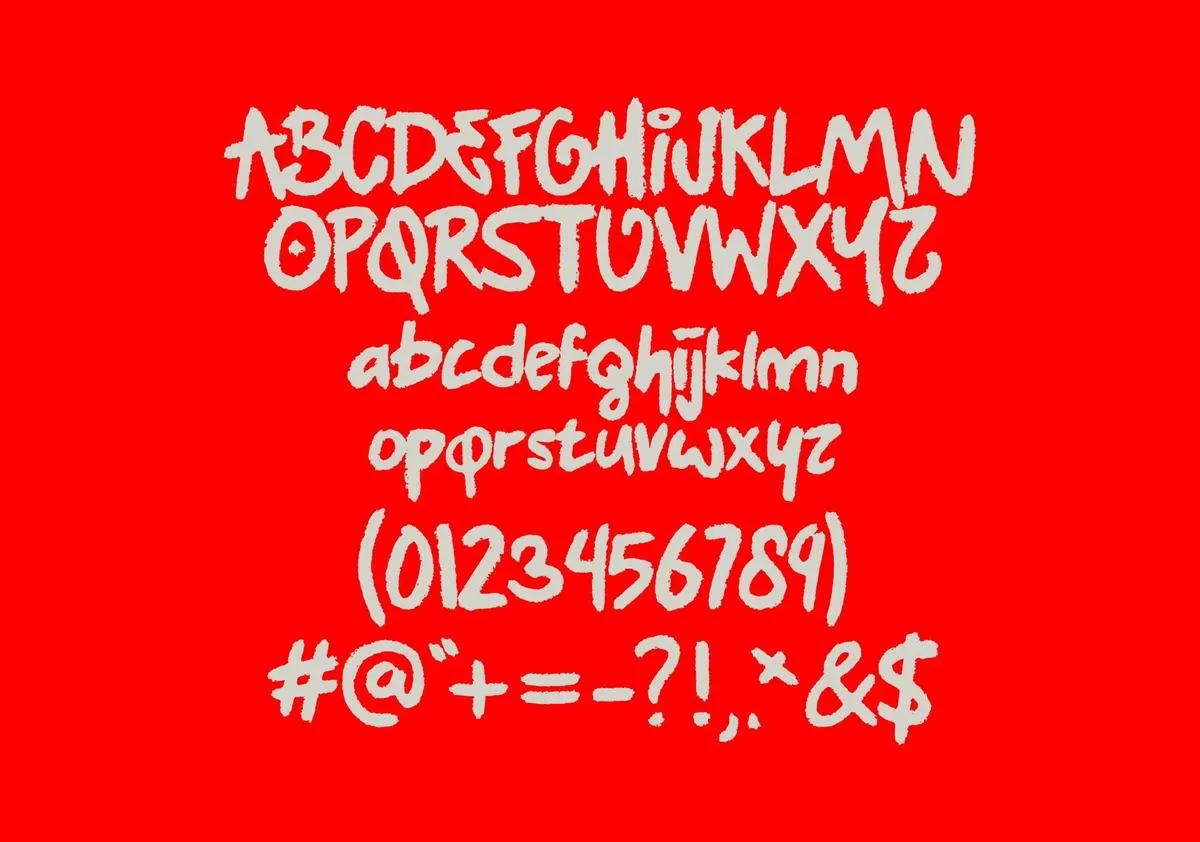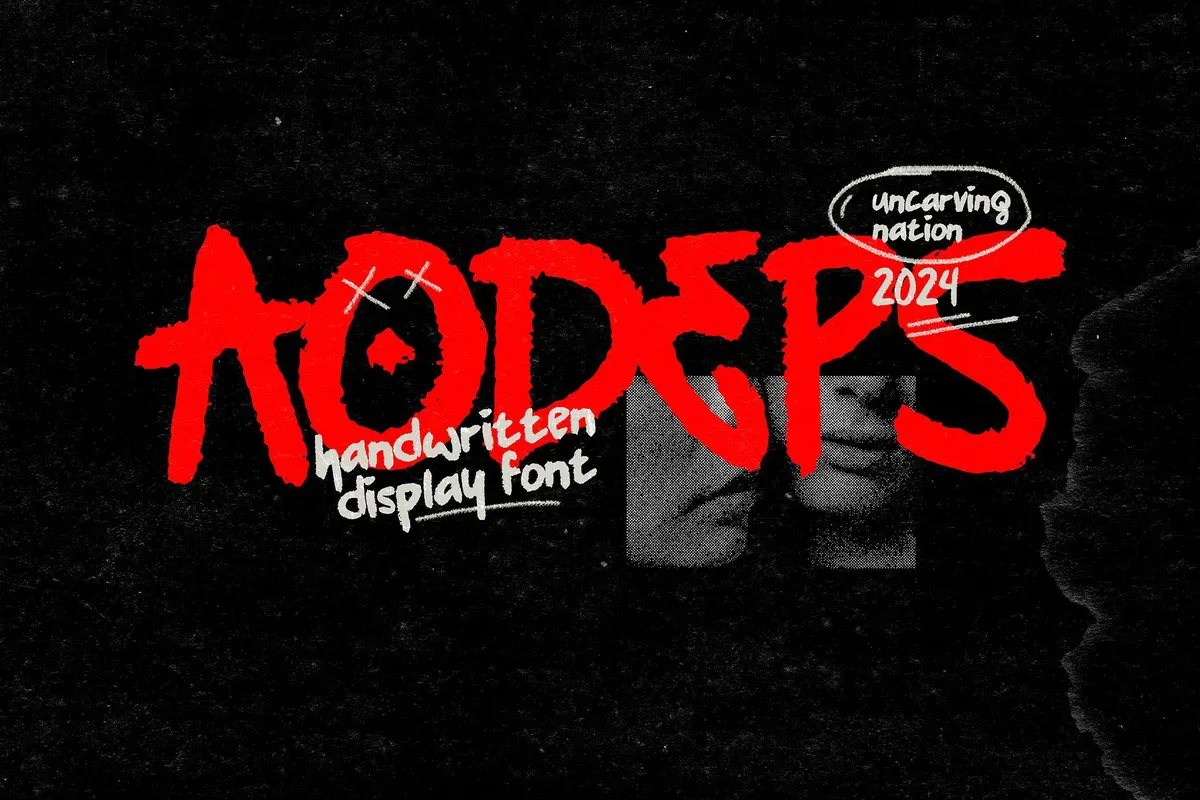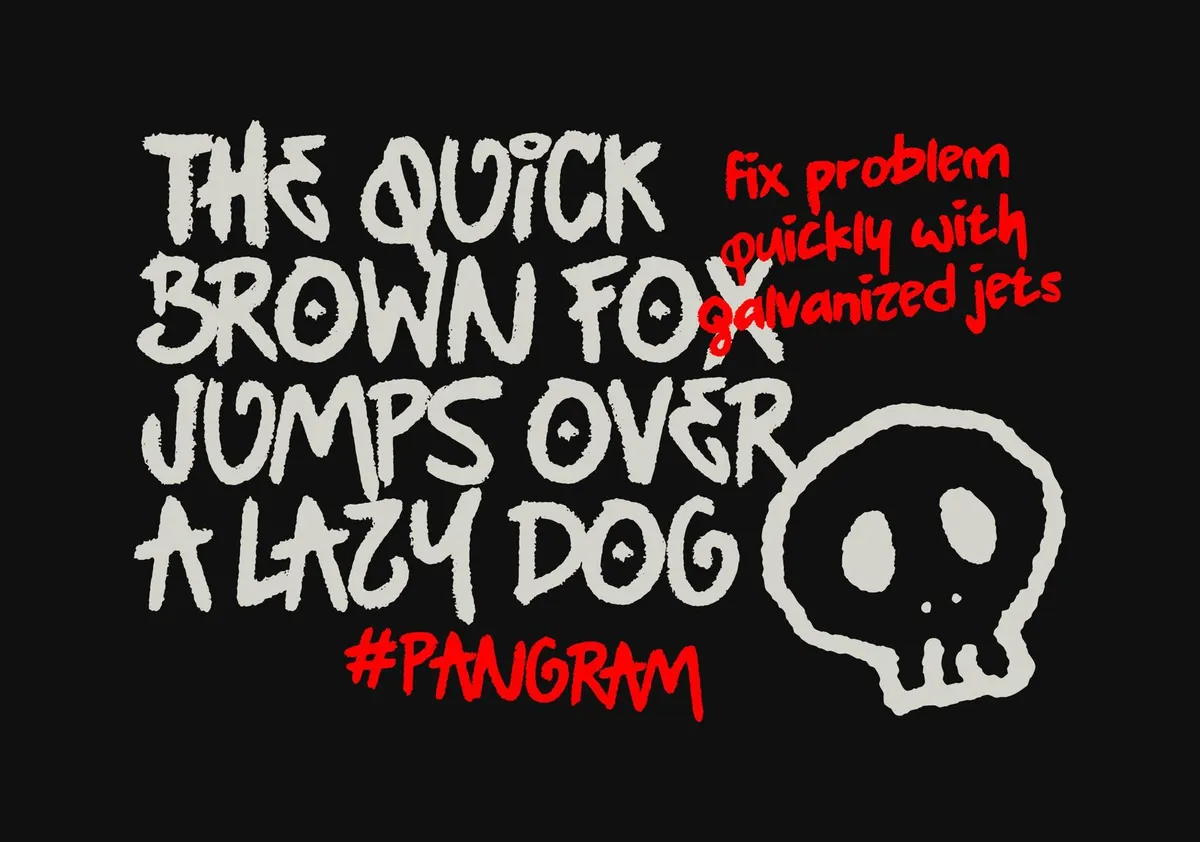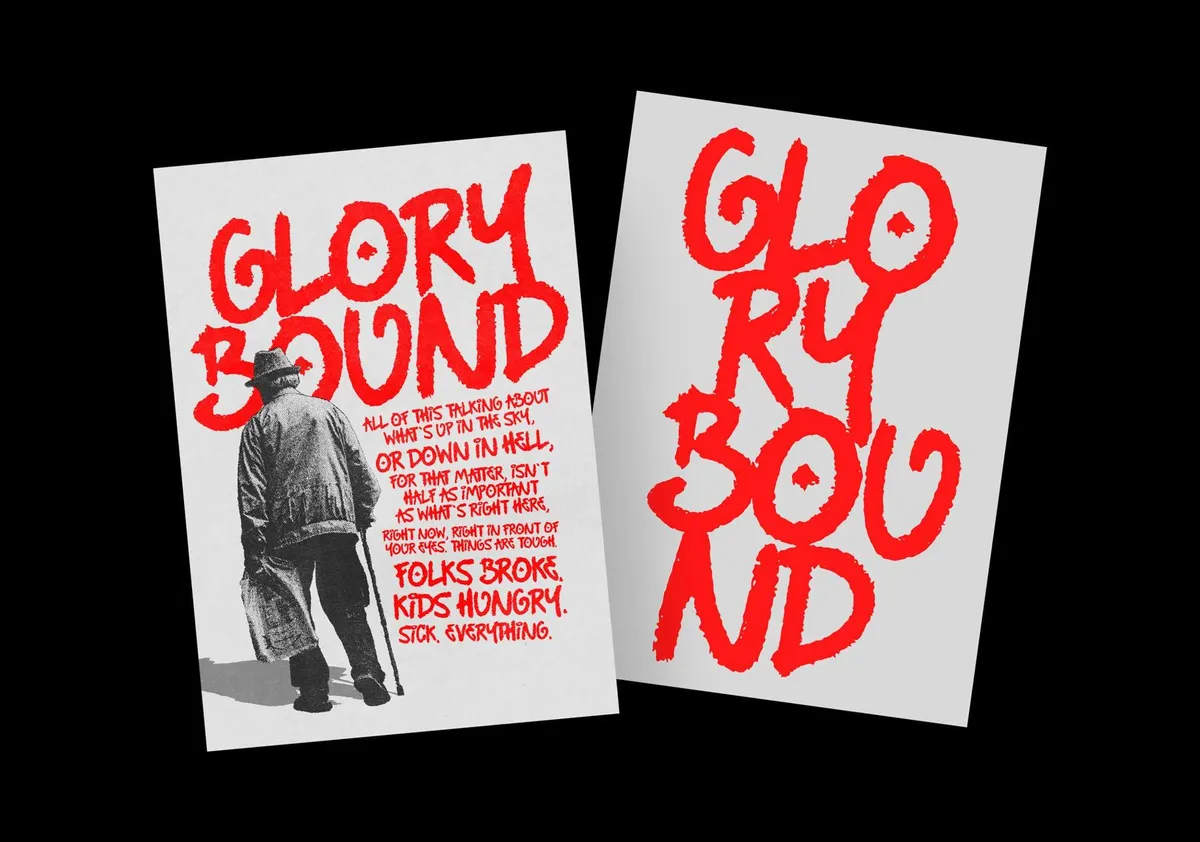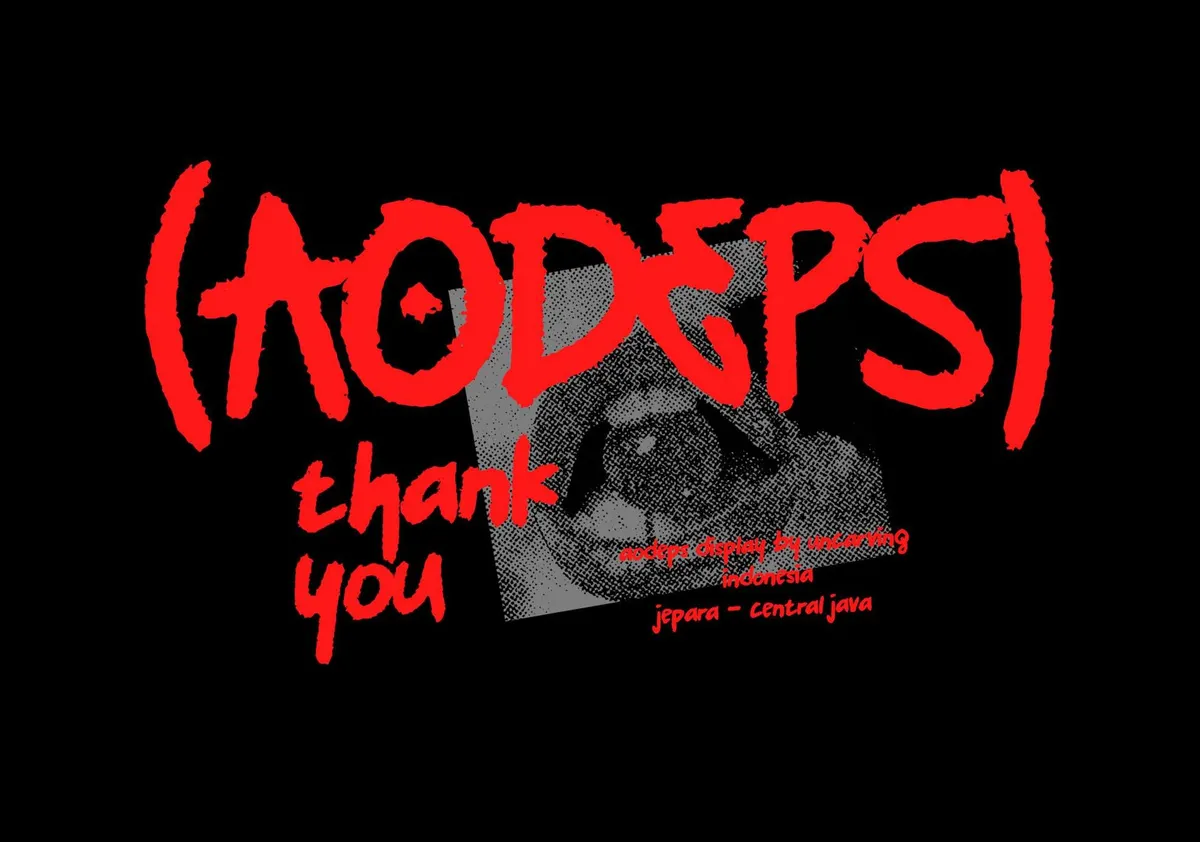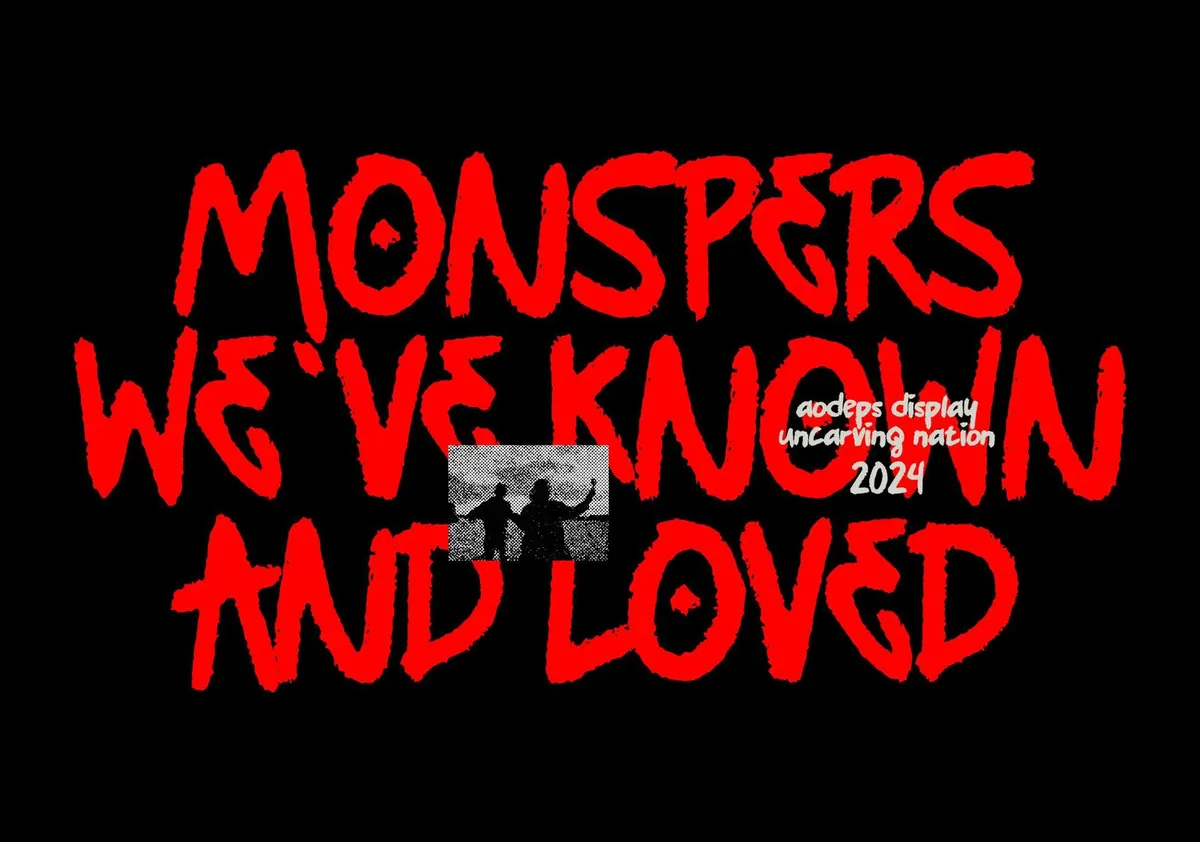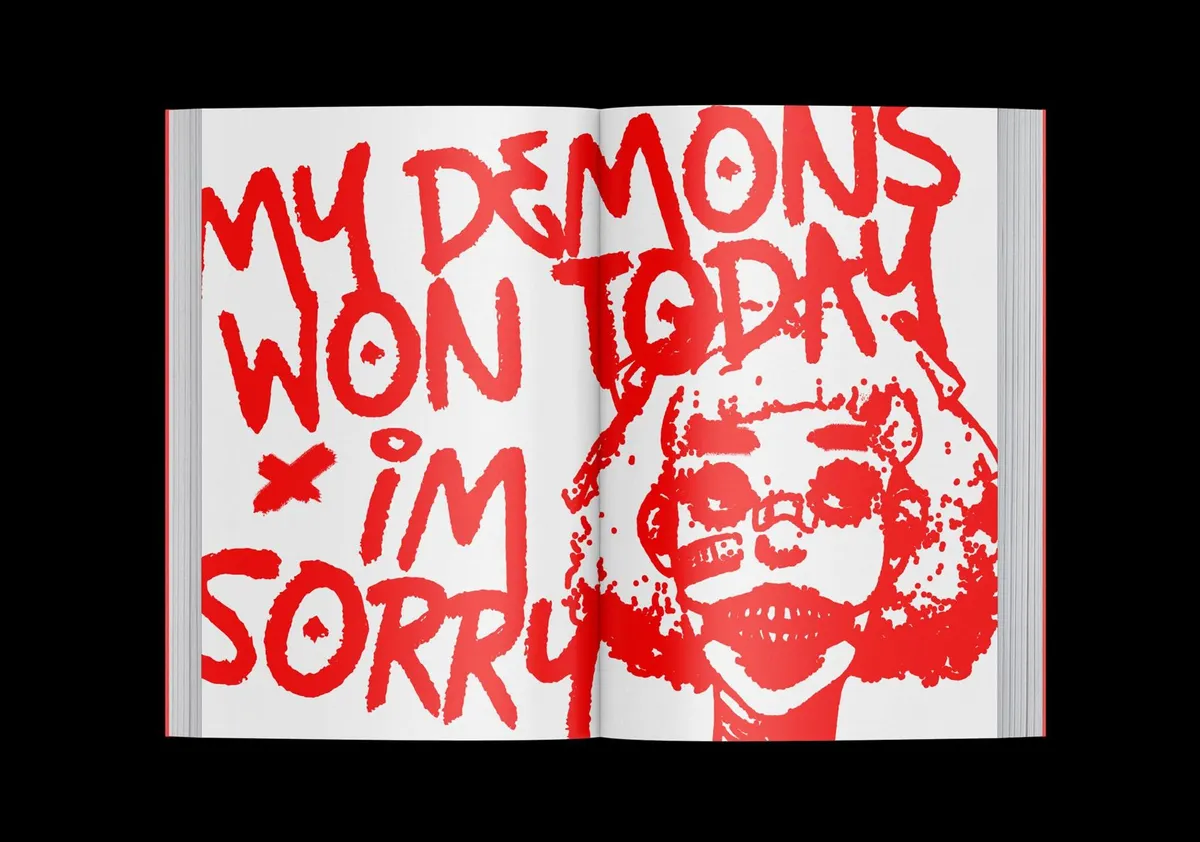
Aodeps — Display Font
If you’ve ever wanted a font that perfectly matches the vibe of Mother Mother’s "Hayloft" (whether you’re more into the first or second version), Aodeps is it. This grungy, handwritten typeface oozes that unmistakable edgy, grungy vibe.
Aodeps is a display font, inspired by street culture and the raw authenticity of handwritten notes scrawled on walls. It’s simple, but not boring. The jagged edges and rough lines give it a gritty yet modern aesthetic that’s perfect for anything with a rebellious streak — whether you’re working on a zine, branding, or any project that demands a little bit of edge. Perfect for projects where you need that punch of "I don't care, but also, yes I do." It comes with uppercase, lowercase, and punctuation , so you’re covered for whatever you’re cooking up creatively.